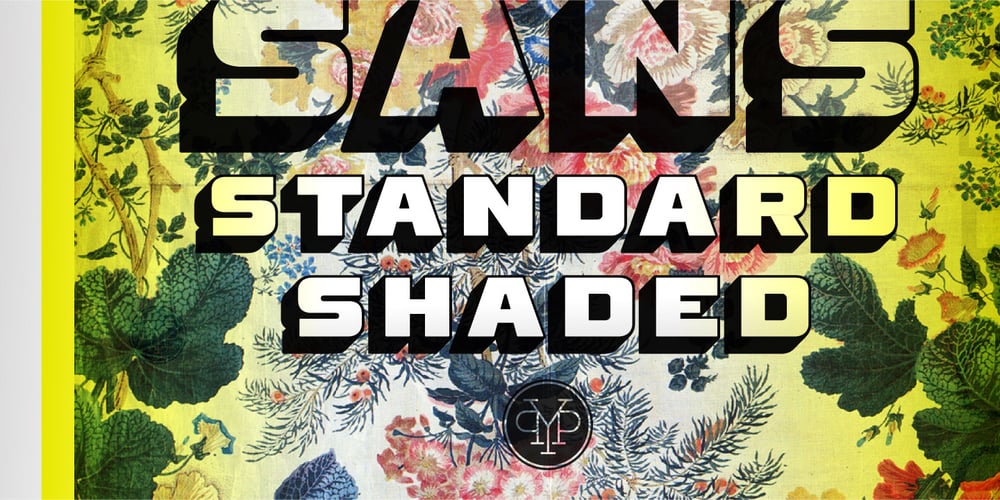
Standard Shaded Sans Font Family was designed by Lee Schulz and published by Yes Please. Standard Shaded Sans contains 1 styles and family package options. The Standard Shaded family is an homage to the grandiose Woodtypes of yesteryear. Standard blends a contemporary sense of craft and proportion with a dash of Woodtype-era personality to keep things interesting. The Standard Shaded family features OpenType conventional ligatures, discretionary ligatures and stylistic alternates as well as a standard set of accents and symbols to provide a versatile end-user experience. The Standard Shaded family has seen action in the print, web and motion arenas for clients such as IFC, Showtime, Nike Women’s Training, Nike Sportswear, Target and Starbucks.